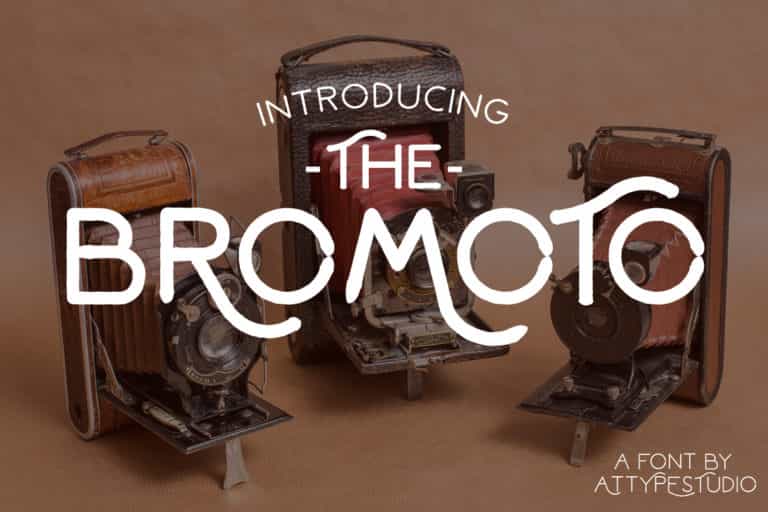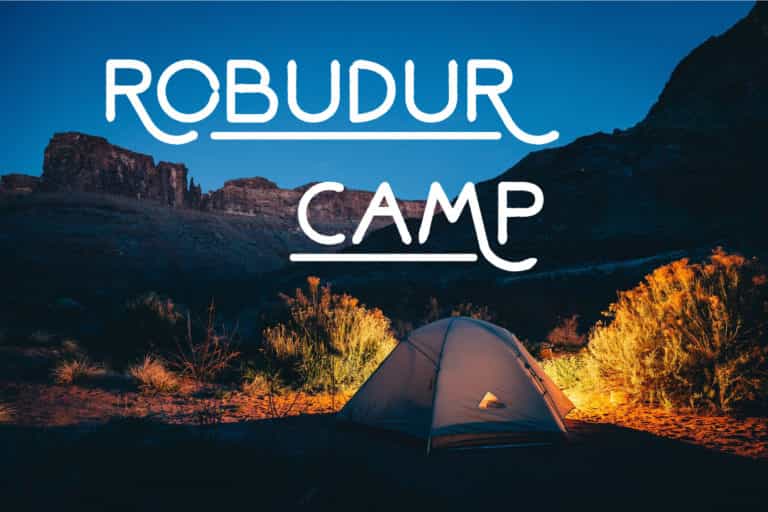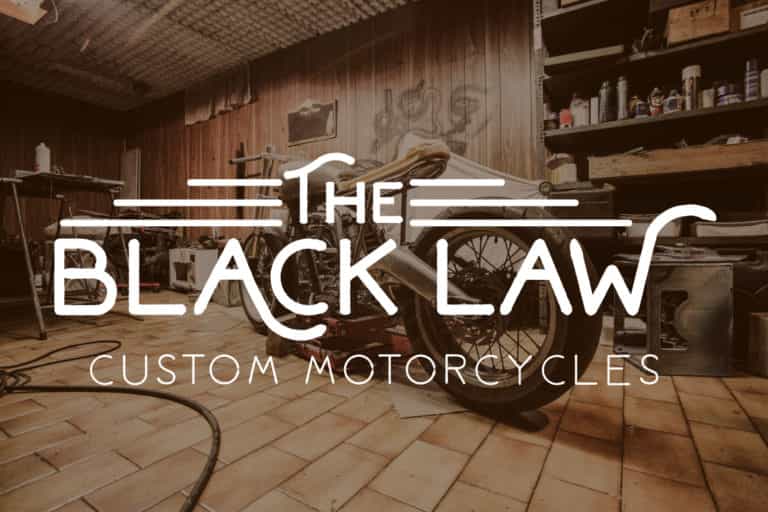
Bromoto Typeface
Introducing Font Bromoto. This font is designed and shared by Attype Studio. Bromoto comes with regular and bold styles. The combination of the two styles makes Bromoto a font that is fun and playful. This font is suitable and applicable for packaging a vintage design, branding, logos, product packaging, invitation, quote, t-shirt, label posters etc.